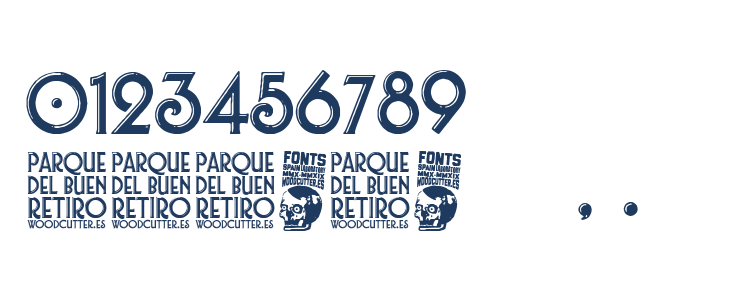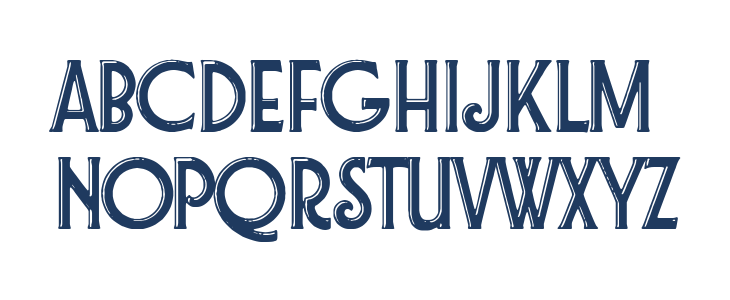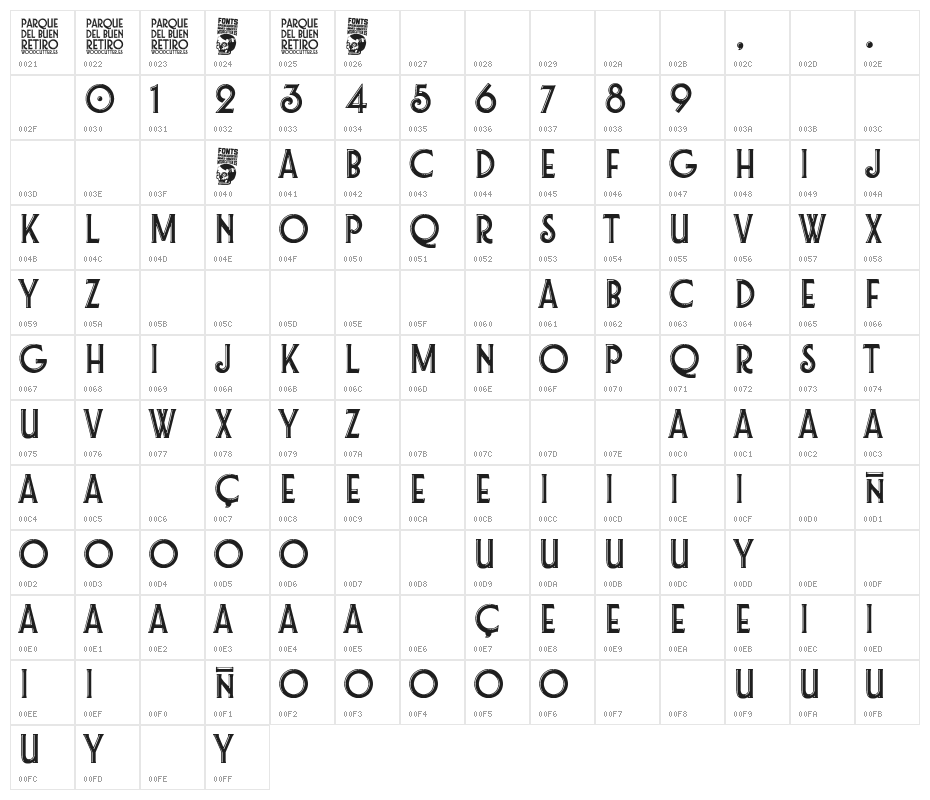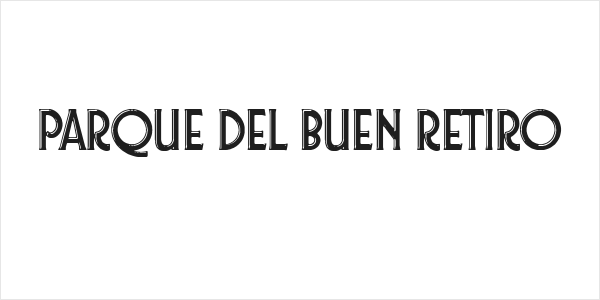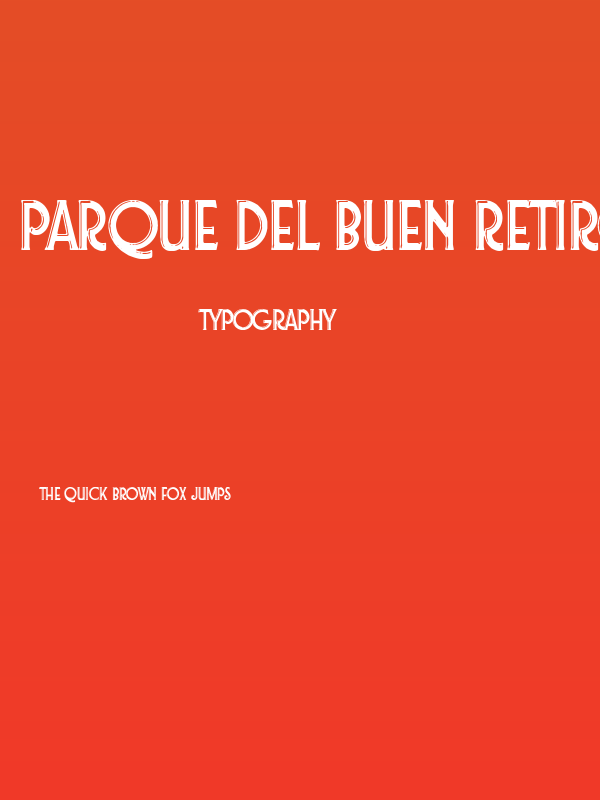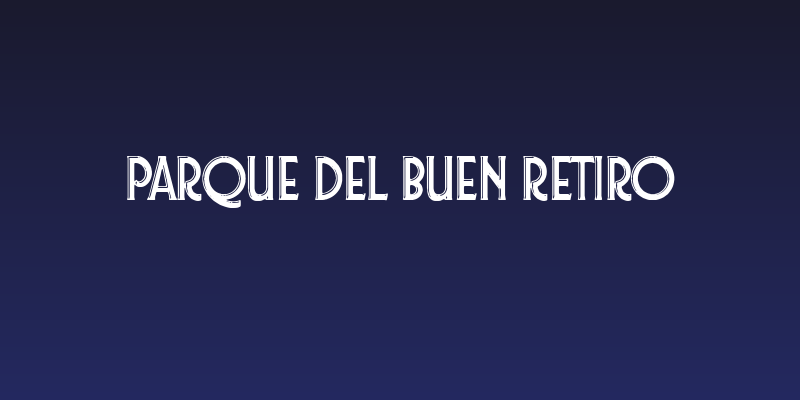
Parque del Buen Retiro Font
Parque del Buen Retiro Description
A geometric, decorative sans-serif font with art deco influences, featuring bold strokes, high contrast, and unique circular elements in characters such as 'Q', 'G', and 'O'. The letterforms are tall with a condensed width and prominent vertical emphasis, while the numerals and punctuation maintain the same stylistic features.
| Overall Style | Decorative, Art Deco, Retro |
| Use Case | Headlines, Logos, Posters, Signage |
| Proposed Projects | Posters, branding, event invitations, signage, retro-themed designs, logos. |